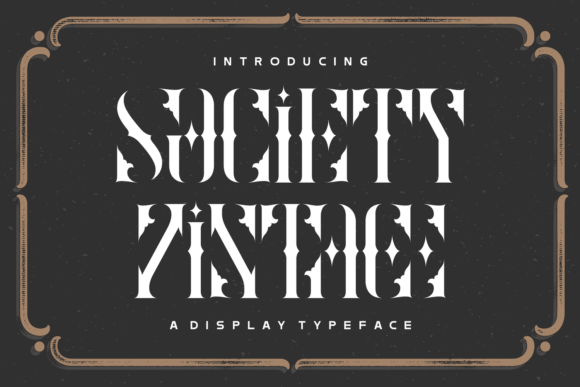
Embark on a captivating odyssey into the realm of typography with Society Vintage Font, a timeless and elegant serif font crafted by the visionaries at 177Studio. This masterpiece draws inspiration from the graceful curves and refined details of traditional serif typefaces, evoking a sense of nostalgia and grandeur.
Immerse yourself in the versatility of Society Vintage, a font family that effortlessly adapts to a myriad of creative endeavors. Whether you're crafting logos that exude timeless charm or designing posters that capture the essence of a bygone era, Society Vintage seamlessly elevates your designs to new heights.
Unleash your imagination and let the vintage charm of Society Vintage captivate your audience. Envision the allure of your brand's logo rendered in the intricate lines of this serif font, leaving an indelible mark in the minds of your customers. Picture the allure of your posters and flyers, adorned with Society Vintage's elegant letterforms, drawing eyes from across the room.
Step into the world of Society Vintage and experience the transformative power of typography. Let your creativity soar as you explore the boundless possibilities of this enchanting font, leaving a trail of visual artistry in its wake.